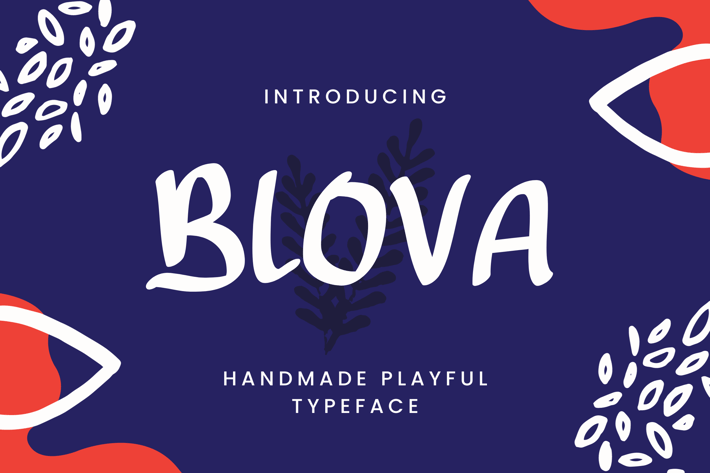
Blova - Handmade Playful Typeface
Blova is an energetic and handmade playful typeface that infuses your designs with a dynamic and engaging essence. With its vibrant and expressive characters, Blova is perfect for conveying a sense of joy and excitement across various creative projects.
Whether you're designing logos, posters, or merchandise, Blova's lively demeanor adds a distinctive charm that captures attention and creates a lasting impression. Embrace the creative possibilities with Blova and let your designs resonate with a playful and spirited vibe that stands out in the crowd.
Blova is an energetic and handmade playful typeface that infuses your designs with a dynamic and engaging essence. With its vibrant and expressive characters, Blova is perfect for conveying a sense of joy and excitement across various creative projects.
Whether you're designing logos, posters, or merchandise, Blova's lively demeanor adds a distinctive charm that captures attention and creates a lasting impression. Embrace the creative possibilities with Blova and let your designs resonate with a playful and spirited vibe that stands out in the crowd.
Blova is an energetic and handmade playful typeface that infuses your designs with a dynamic and engaging essence. With its vibrant and expressive characters, Blova is perfect for conveying a sense of joy and excitement across various creative projects.
Whether you're designing logos, posters, or merchandise, Blova's lively demeanor adds a distinctive charm that captures attention and creates a lasting impression. Embrace the creative possibilities with Blova and let your designs resonate with a playful and spirited vibe that stands out in the crowd.
Blova is an energetic and handmade playful typeface that infuses your designs with a dynamic and engaging essence. With its vibrant and expressive characters, Blova is perfect for conveying a sense of joy and excitement across various creative projects.
Whether you're designing logos, posters, or merchandise, Blova's lively demeanor adds a distinctive charm that captures attention and creates a lasting impression. Embrace the creative possibilities with Blova and let your designs resonate with a playful and spirited vibe that stands out in the crowd.